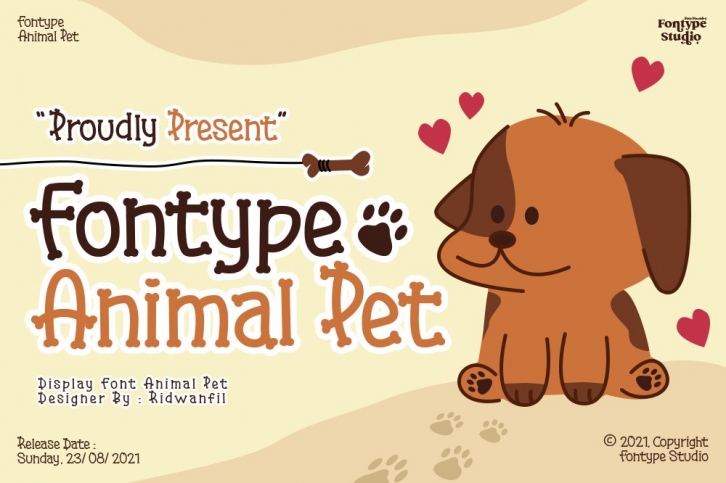
ype Animal Pet is a trendy and unique font with an authentic style. It was designed by Ridwanfil and it's a great choice for creative people who need such a font. It was released on August 24, 2021 and the file size is 17.62 MB. ype Animal Pet will add an organic vibe to any design idea!